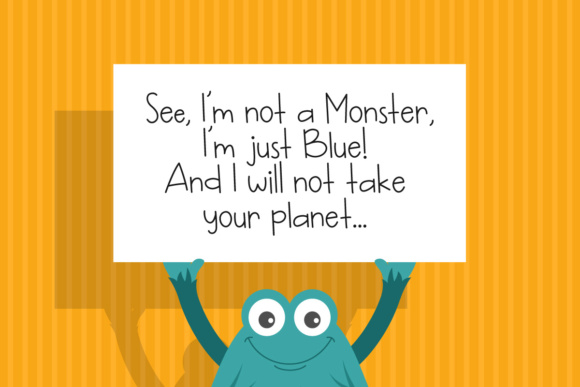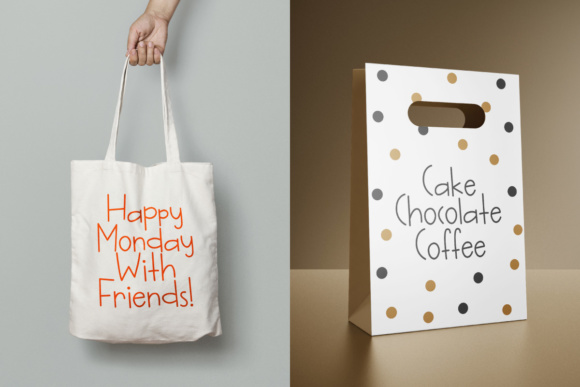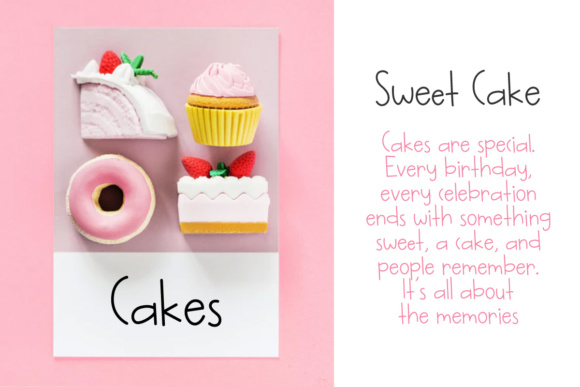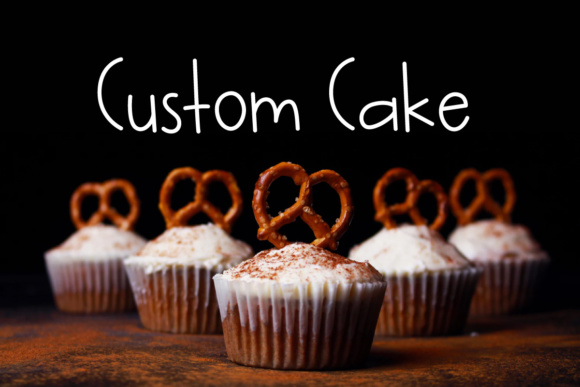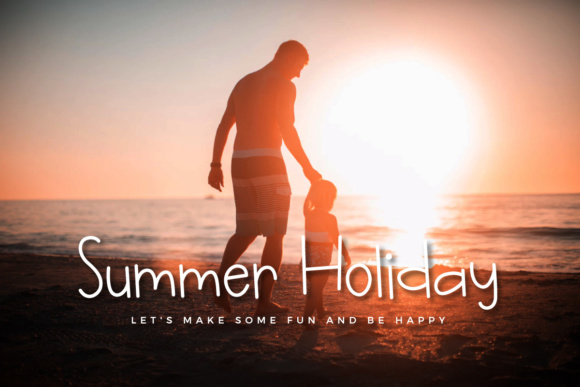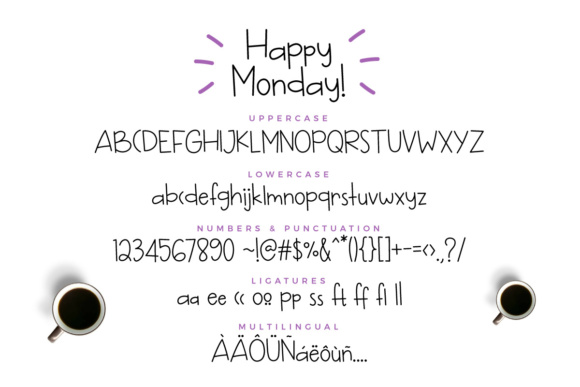
Introducing Happy Monday Font: The Perfect Addition to Your Design Toolkit
Are you tired of using the same old fonts in your designs? Look no further than Happy Monday Font, a cute and bouncy sans serif font that’s sure to add a touch of whimsy to your work. With its unique handwritten feel, Happy Monday Font is adept at adding a jovial feel to your designs, making it perfect for a wide range of projects.
What Makes Happy Monday Font So Special?
Happy Monday Font is a versatile font that’s designed to look great in a variety of designs and project types. Whether you’re working on a fun and playful project or a more serious and professional one, Happy Monday Font is sure to make a great impression. Its sans serif design gives it a clean and modern look, while its handwritten feel adds a touch of personality and charm.
Uses for Happy Monday Font
So, what can you use Happy Monday Font for? The possibilities are endless! Here are a few ideas to get you started:
- Headlines: Happy Monday Font is perfect for use in headlines, where its bold and playful design can really make a statement.
- Body Text: But Happy Monday Font isn’t just limited to headlines – it’s also great for use in body text, where its clear and easy-to-read design can help to convey your message.
- Signs and Posters: Happy Monday Font is a great choice for use in signs and posters, where its bold and eye-catching design can really grab people’s attention.
- Digital Media: And it’s not just limited to print – Happy Monday Font is also perfect for use in digital media, such as social media graphics, blog posts, and more.
Benefits of Using Happy Monday Font
So, why should you choose Happy Monday Font for your next project? Here are just a few benefits of using this amazing font:
- Unique and Eye-Catching: Happy Monday Font is a unique and eye-catching font that’s sure to make your designs stand out from the crowd.
- Versatile: Happy Monday Font is a versatile font that can be used in a wide range of designs and project types.
- Easy to Read: Despite its playful design, Happy Monday Font is clear and easy to read, making it perfect for use in body text.
- Fun and Playful: Happy Monday Font adds a touch of fun and playfulness to your designs, making it perfect for projects where you want to convey a lighthearted and carefree vibe.
Tips for Using Happy Monday Font
So, how can you get the most out of Happy Monday Font? Here are a few tips to keep in mind:
- Use it in Combination with Other Fonts: Happy Monday Font is a great font to use in combination with other fonts, which can help to add contrast and visual interest to your designs.
- Experiment with Different Sizes and Colors: Don’t be afraid to experiment with different sizes and colors of Happy Monday Font to find the look that works best for your project.
- Use it to Add Emphasis: Happy Monday Font is a great font to use to add emphasis to certain words or phrases in your designs.
| Author | Kang1993 |
In conclusion, Happy Monday Font is a fantastic addition to any design toolkit. Its unique and eye-catching design, versatility, and ease of use make it a great choice for a wide range of projects. Whether you’re a designer, crafter, or just someone who loves to create, Happy Monday Font is sure to bring a smile to your face and a touch of whimsy to your work.